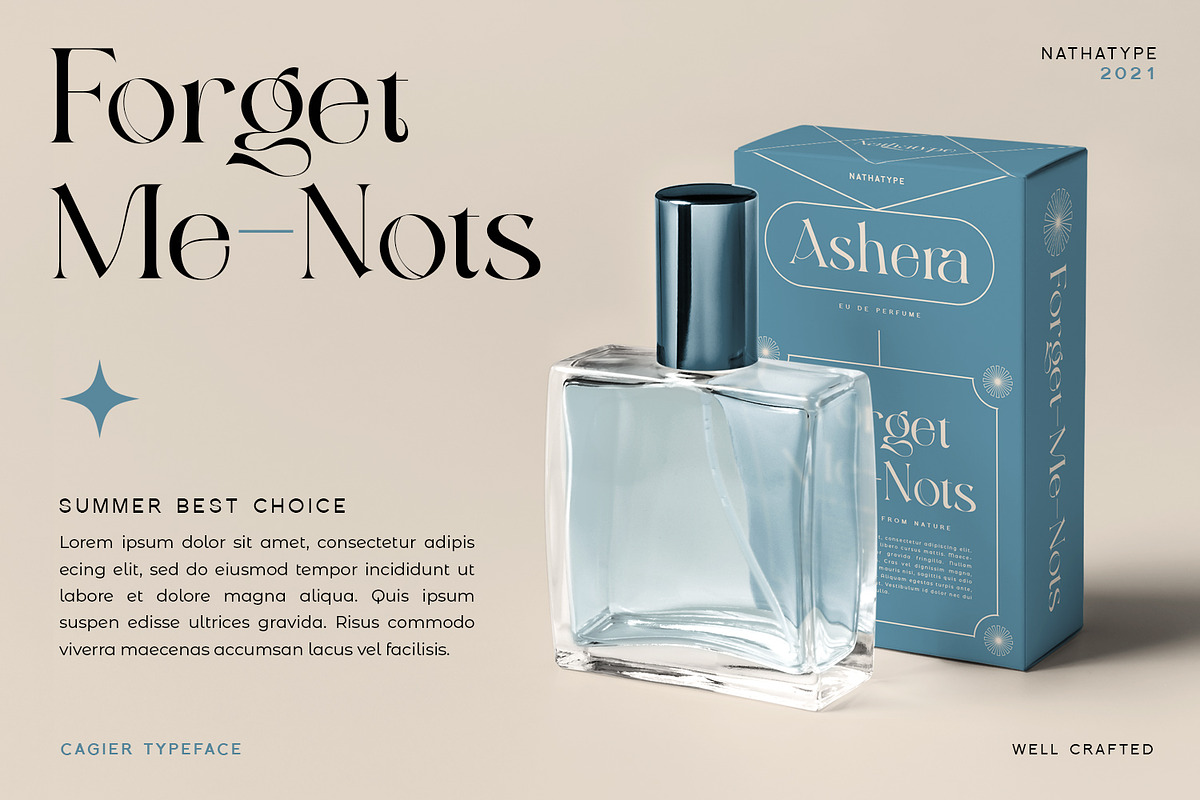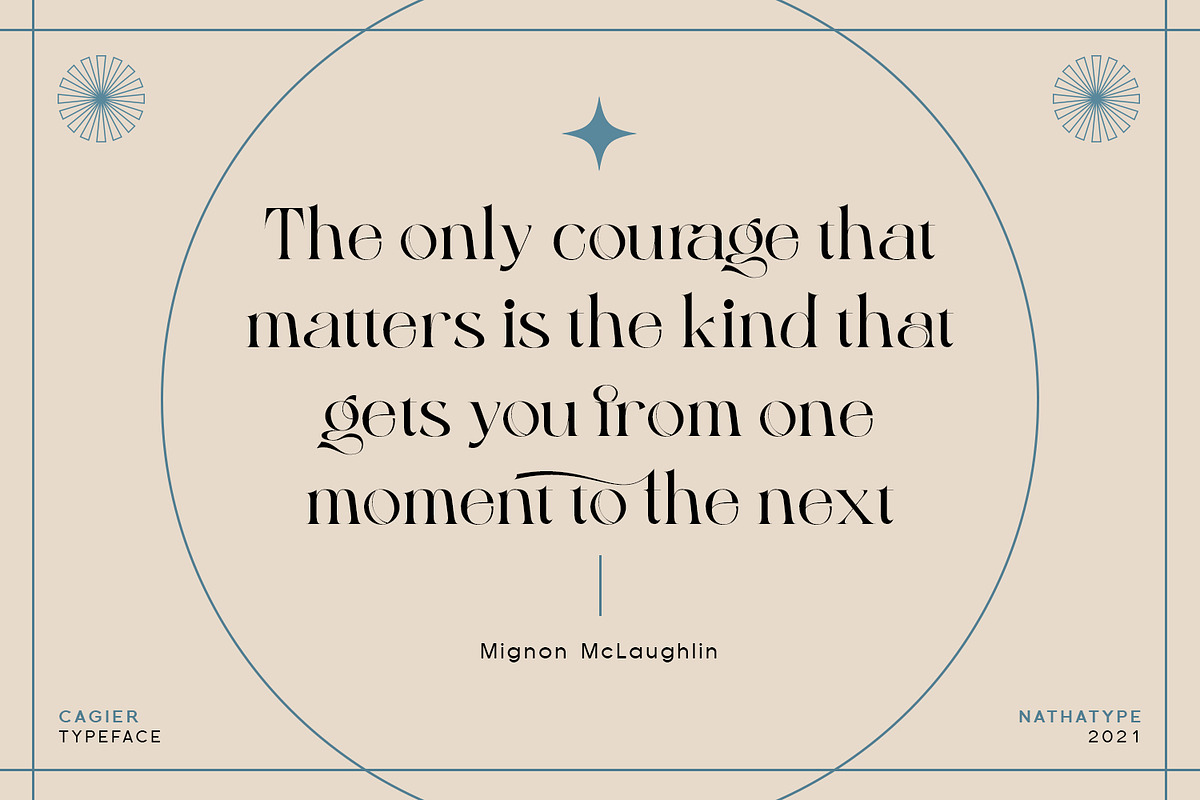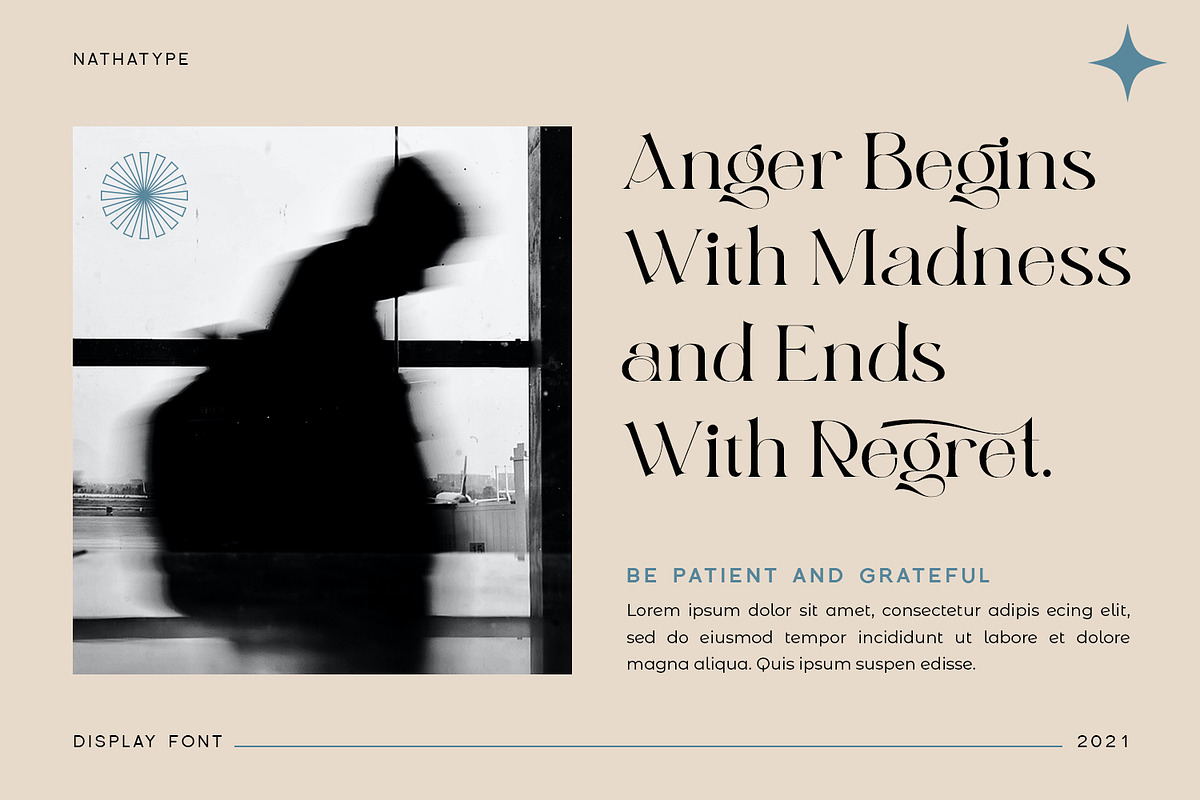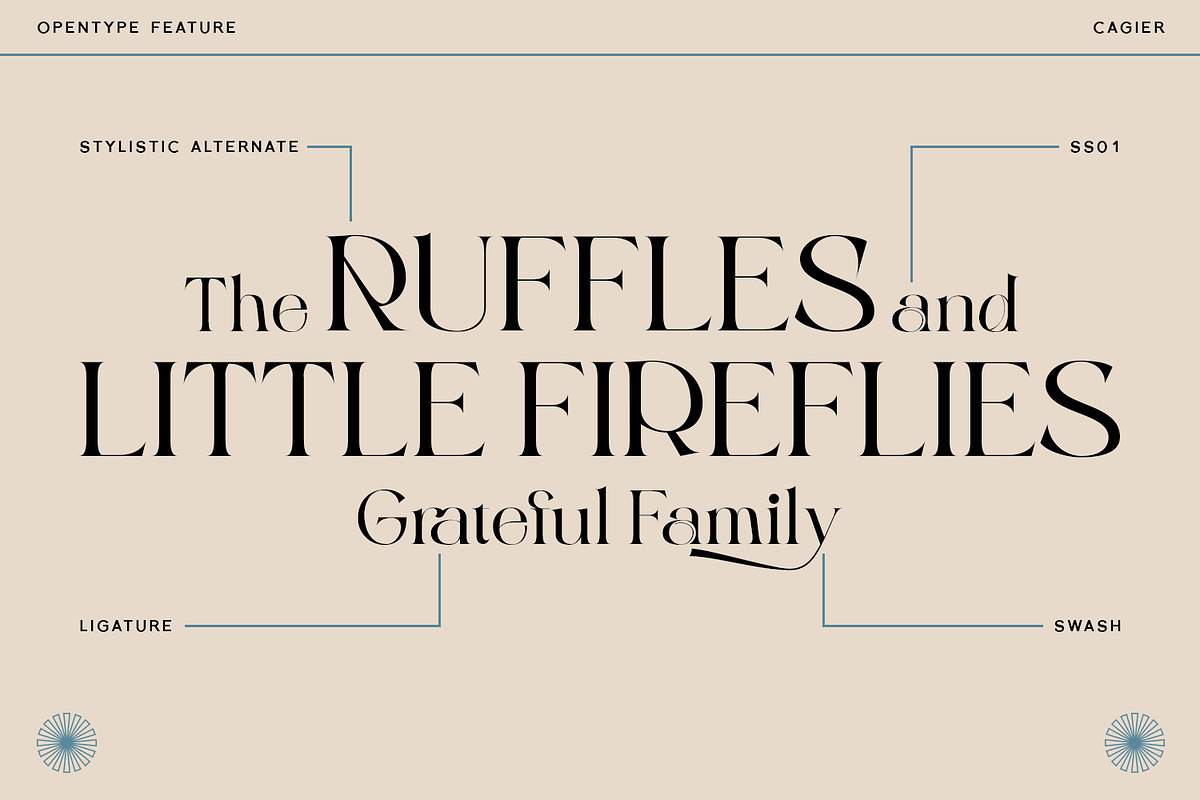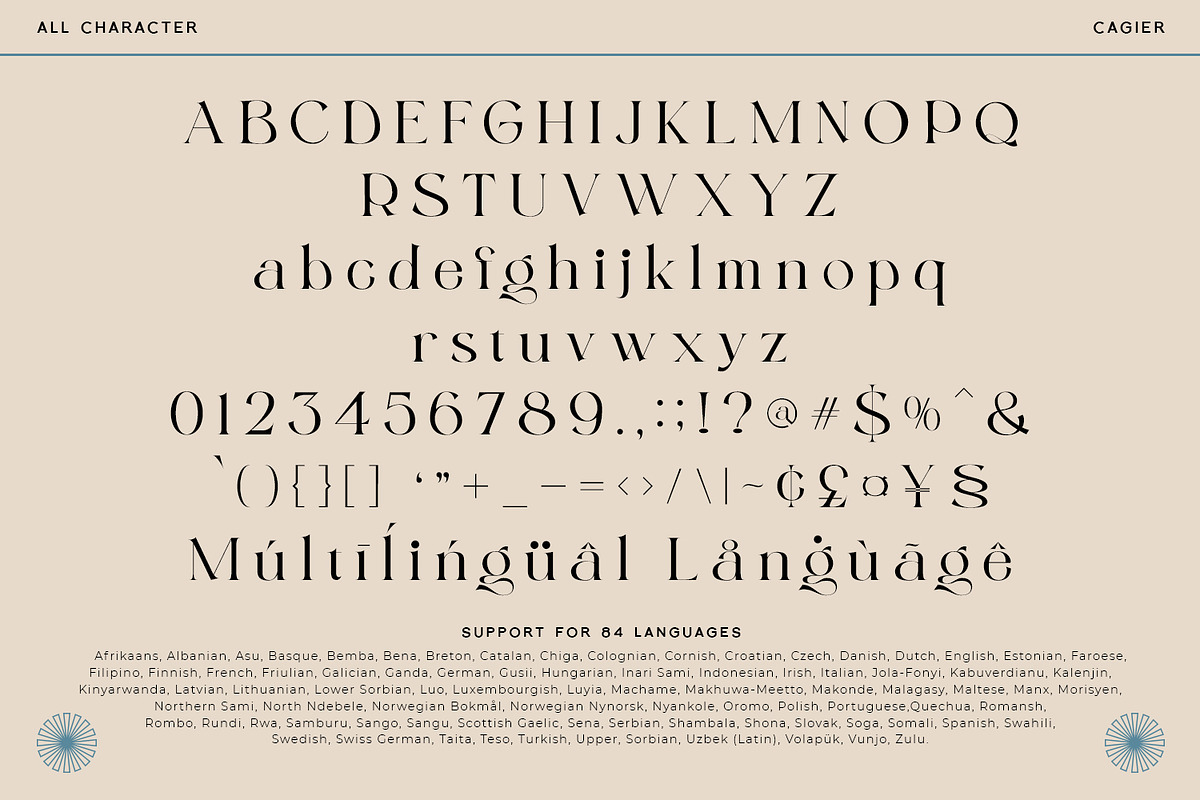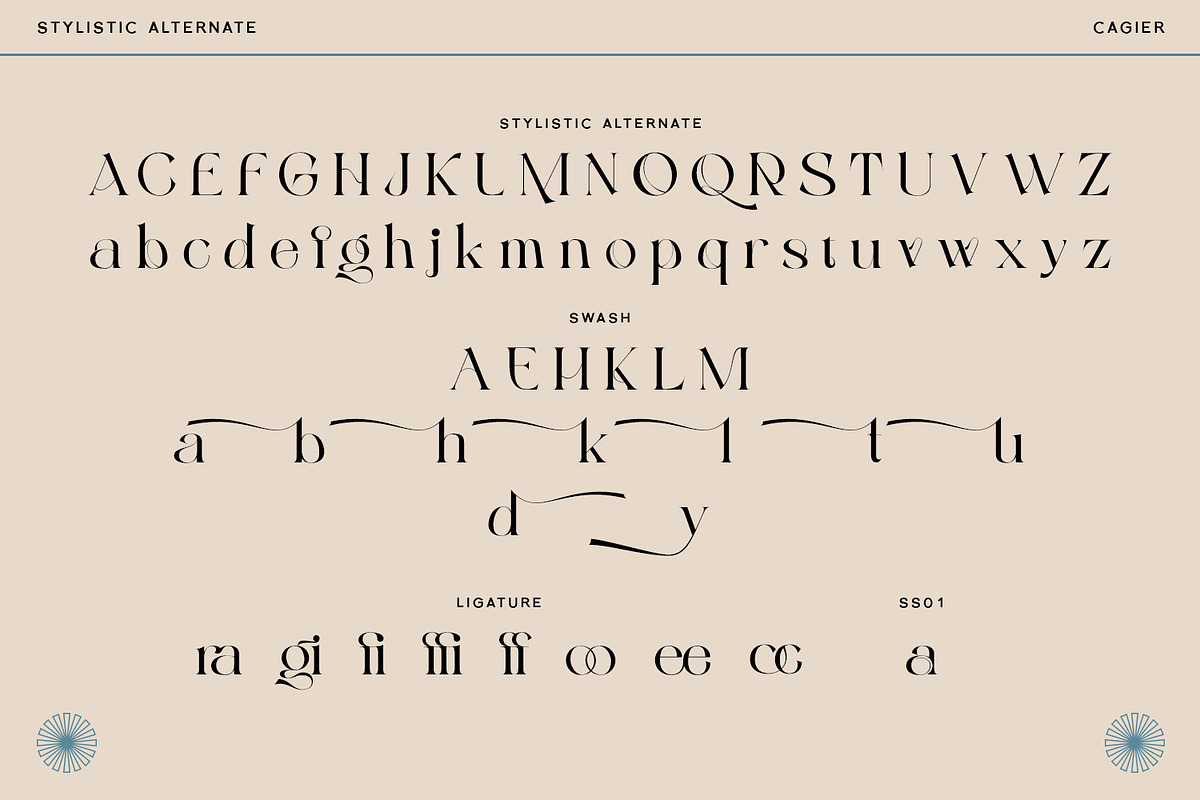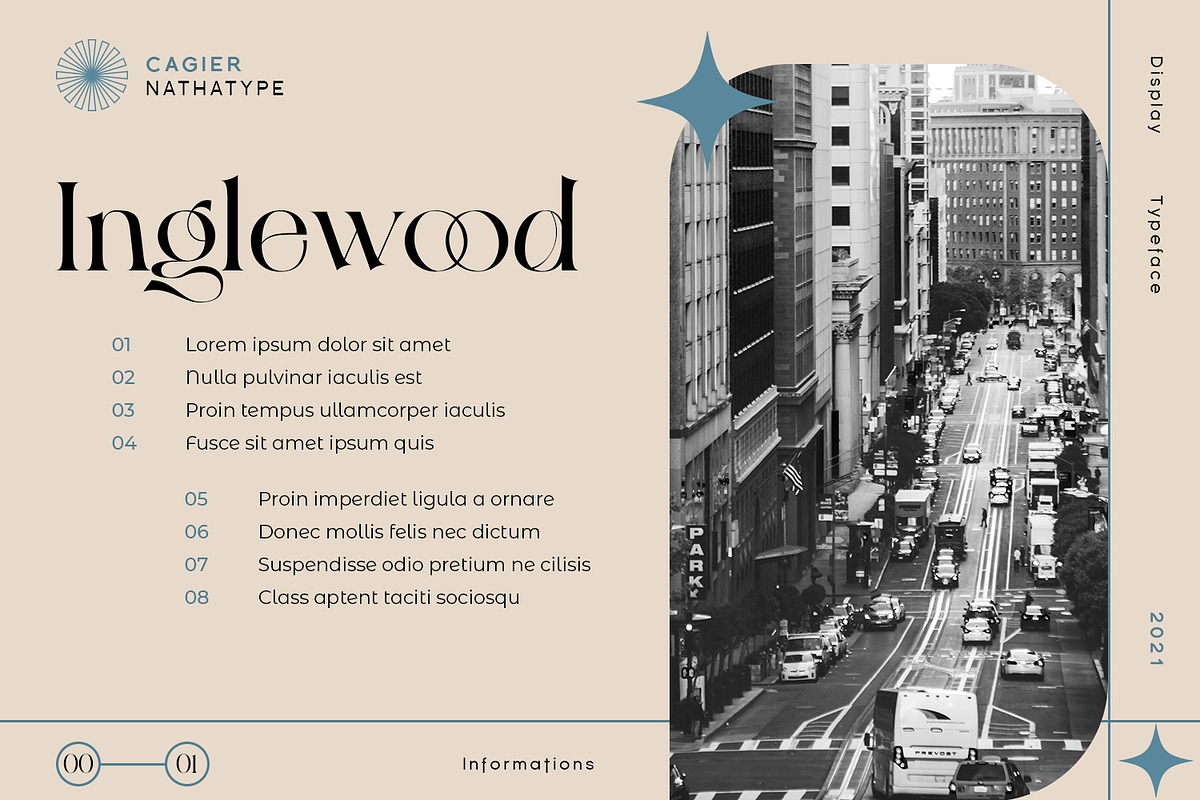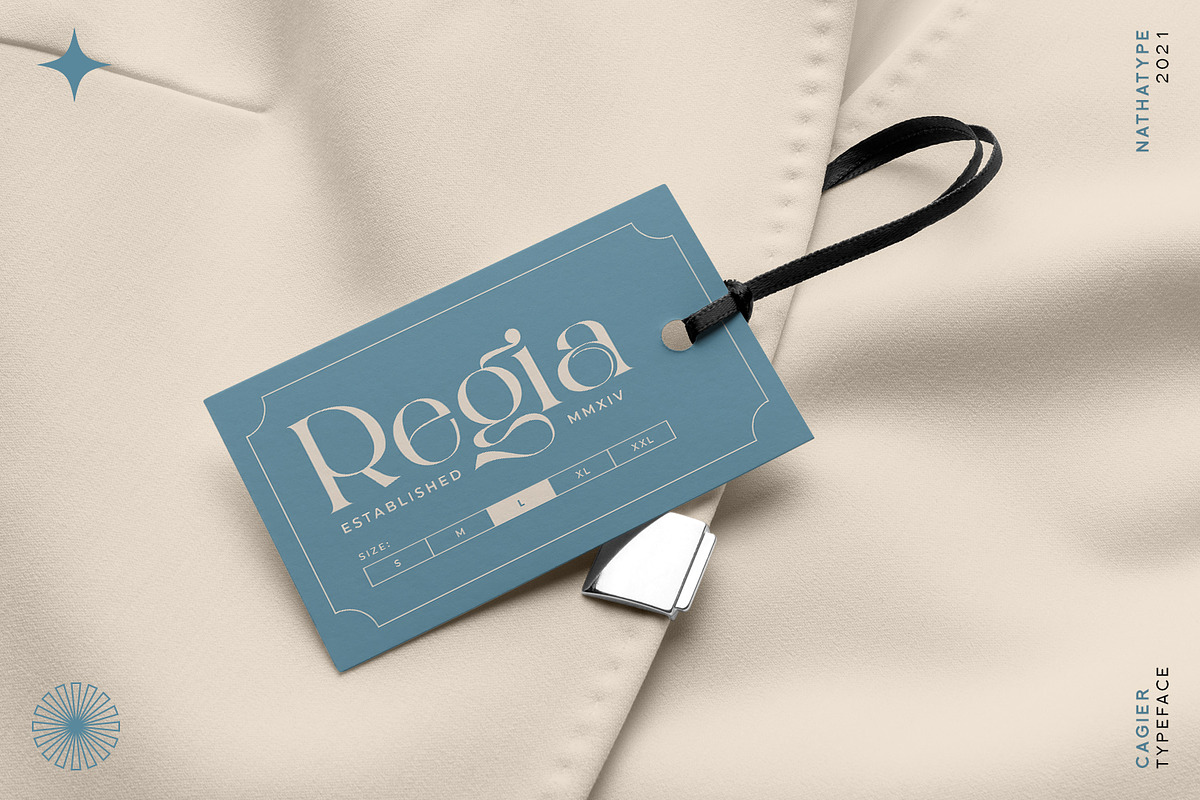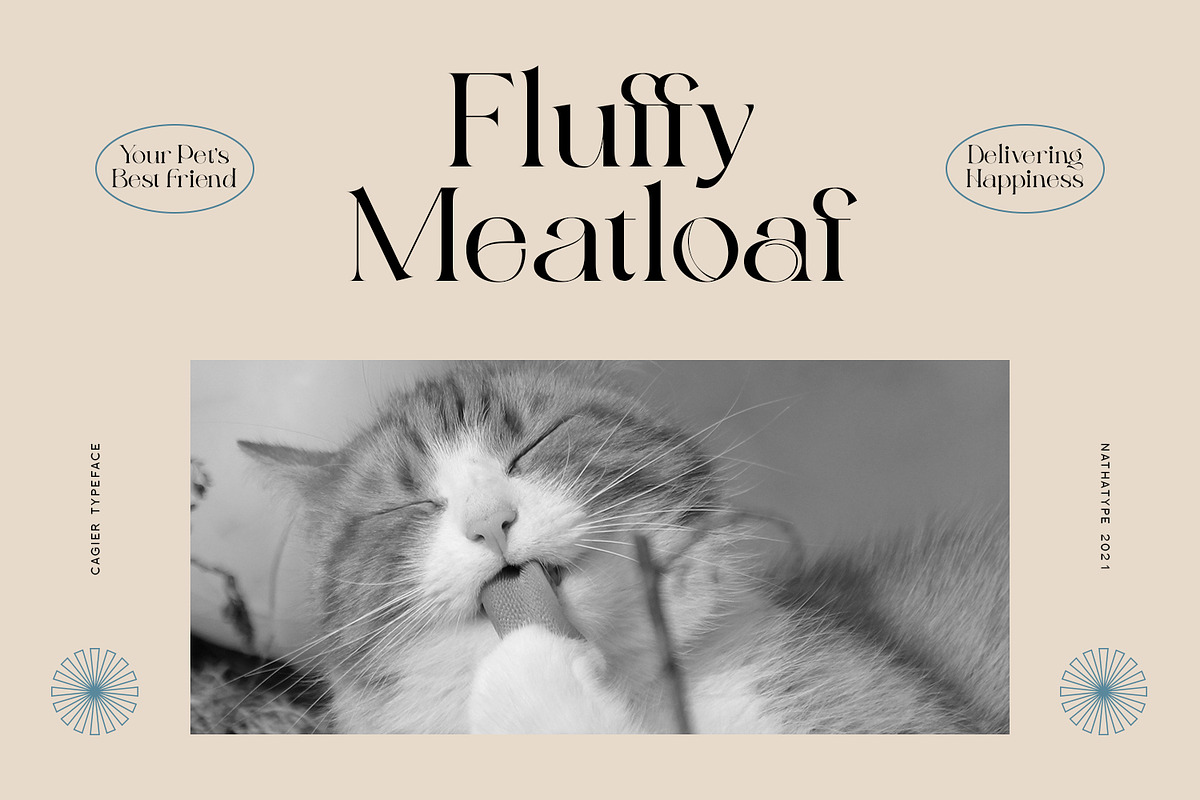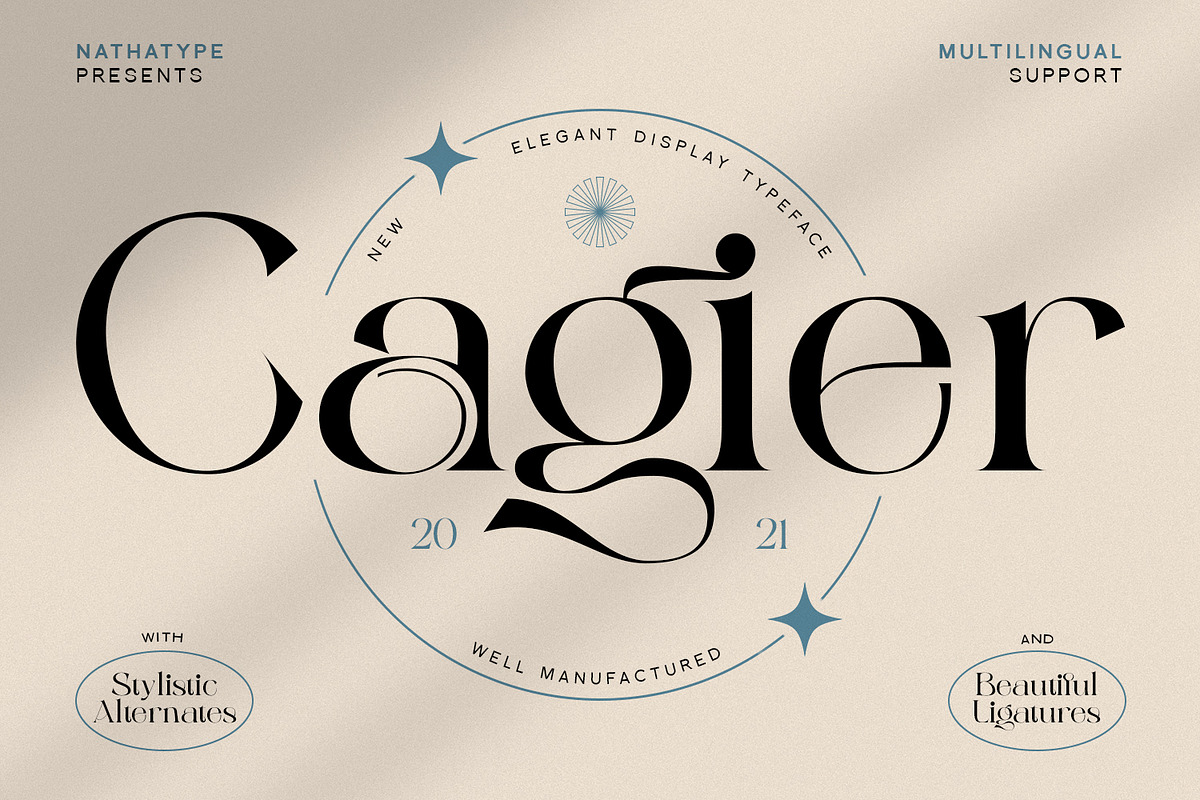
Cagier
Do you dream of creating headings that stand out and inspire creativity, imagination, and endless fun? If you are looking for an elegant font with flair. Something that can makes your project or design being so special. You better not going to want to miss this one!
Cagier-A Display Font
Cagier is a display font in a luxurious, classy, and timeless style. Inspired from classic and vintage flair combine with recently trend style making this font the best choice to whatever your design is. Cagier is mainly intent for logo, headings, branding, magazine, cover album, book cover, movie, apparel design, quotes, invitations, flyer, poster, greeting cards, product packaging, printed quotes, etc.
Hope it helps to capture the soul of any design. Our font always includes Multilingual Support to make your branding reach a global audience.
- Stylistic Set